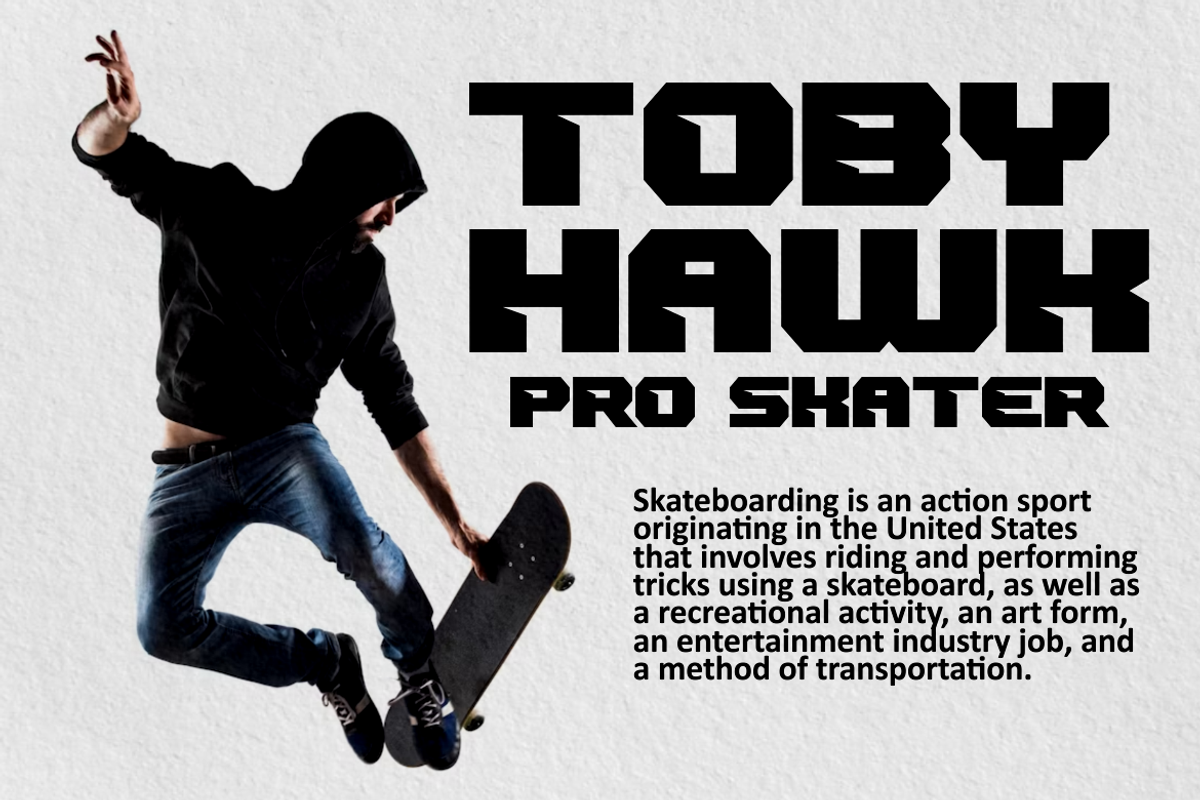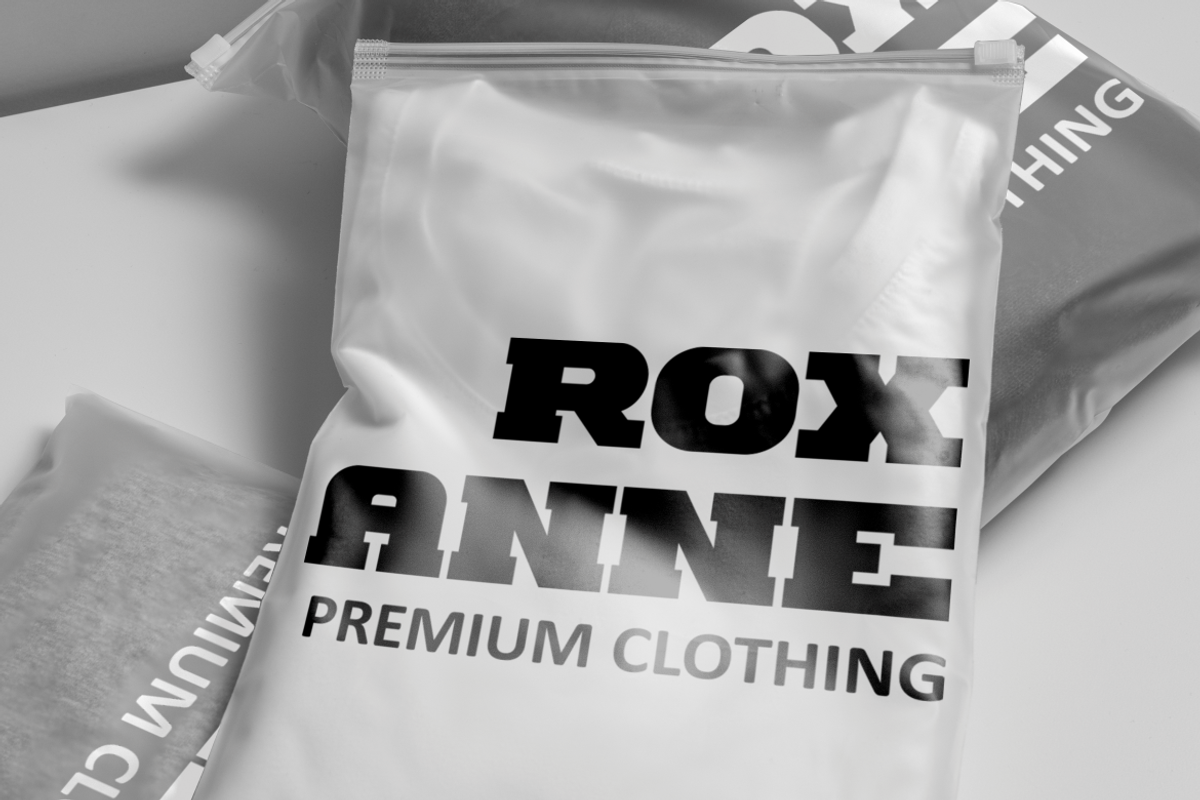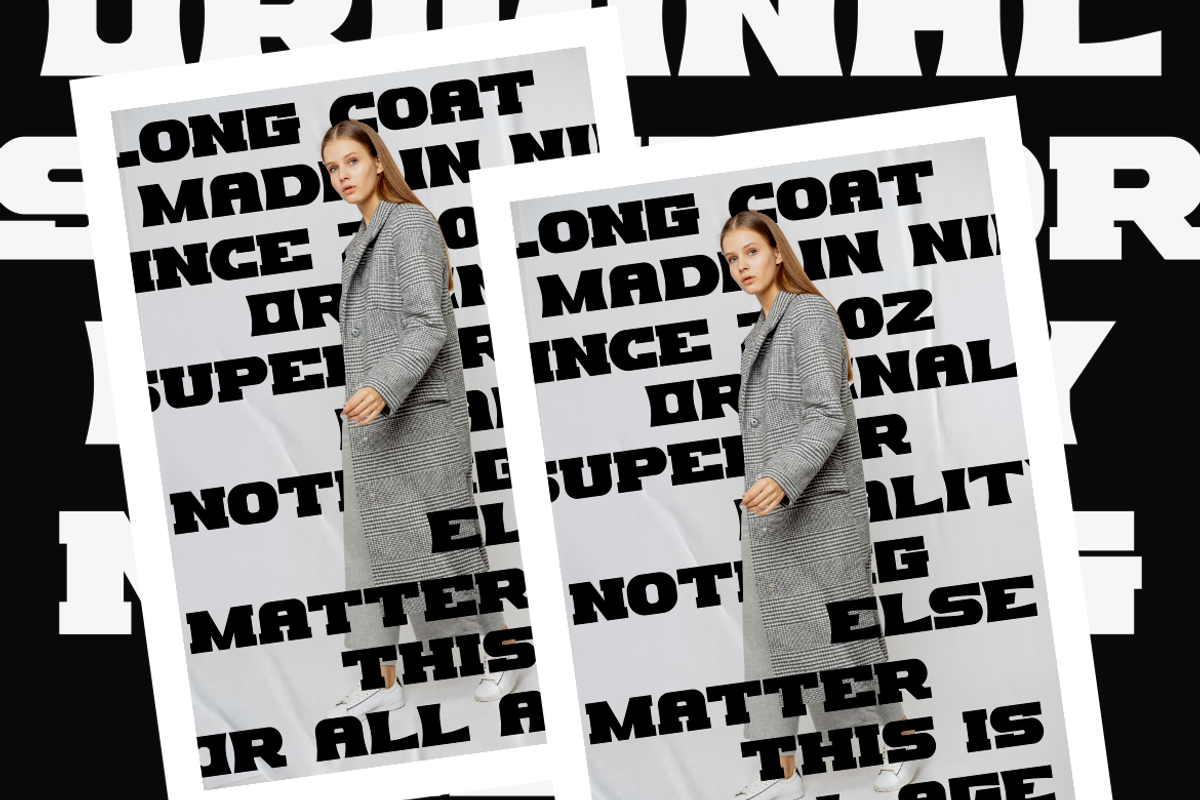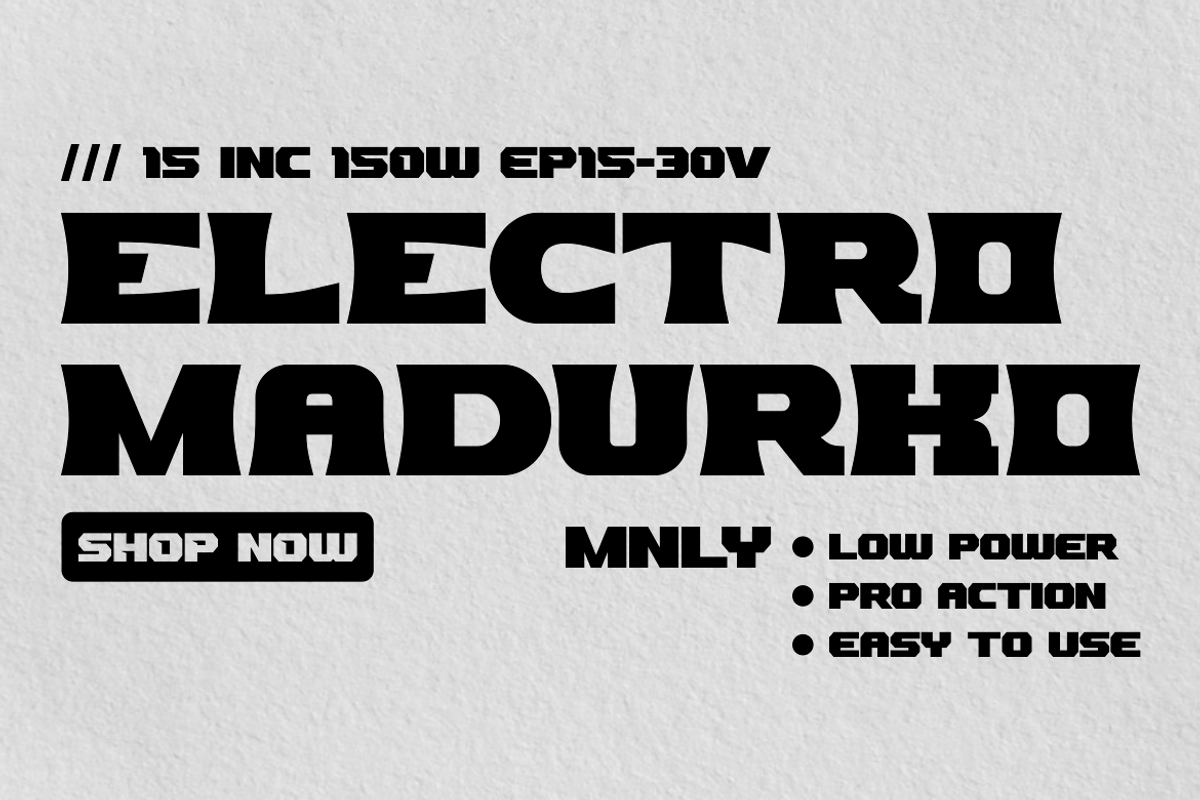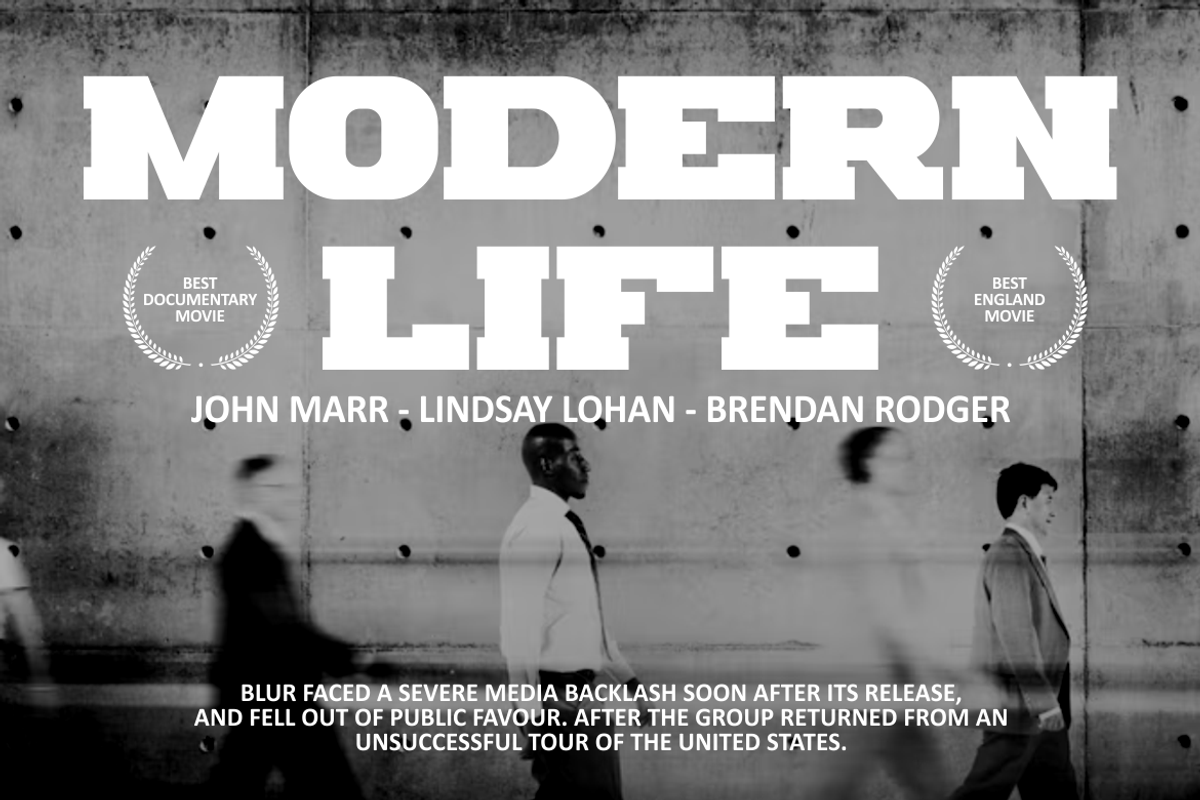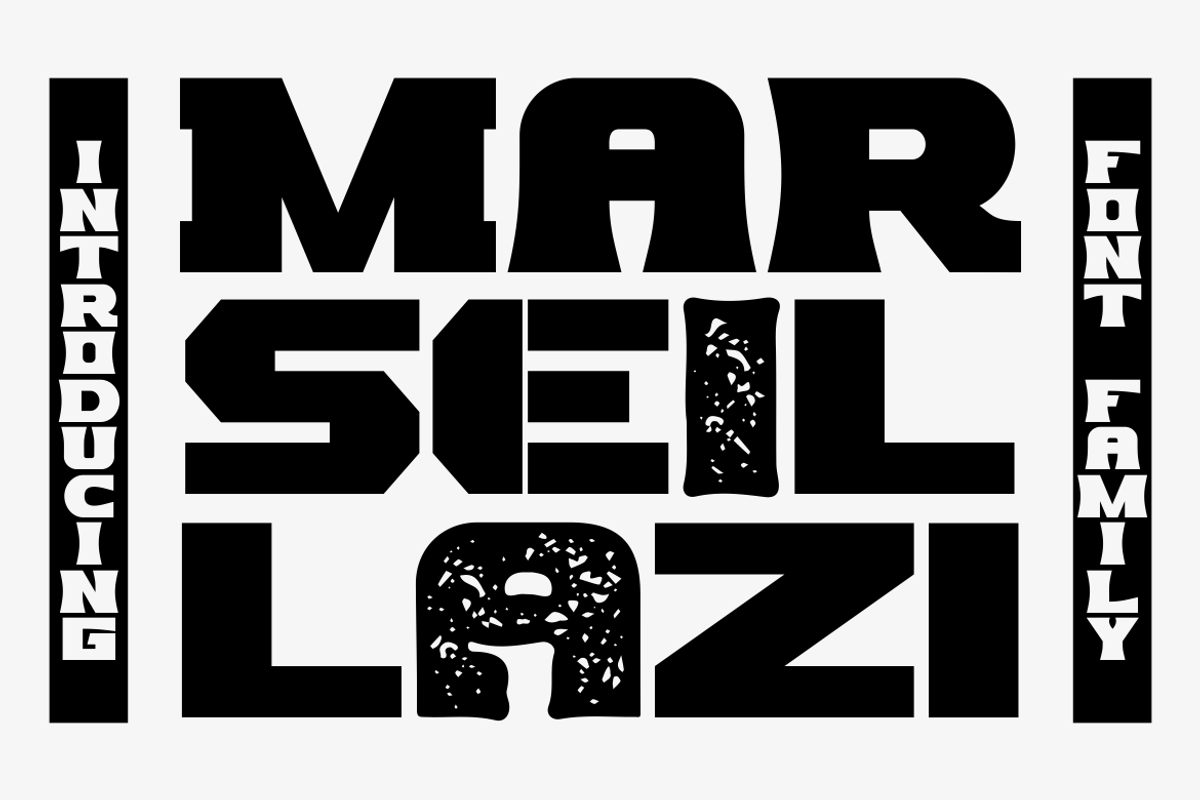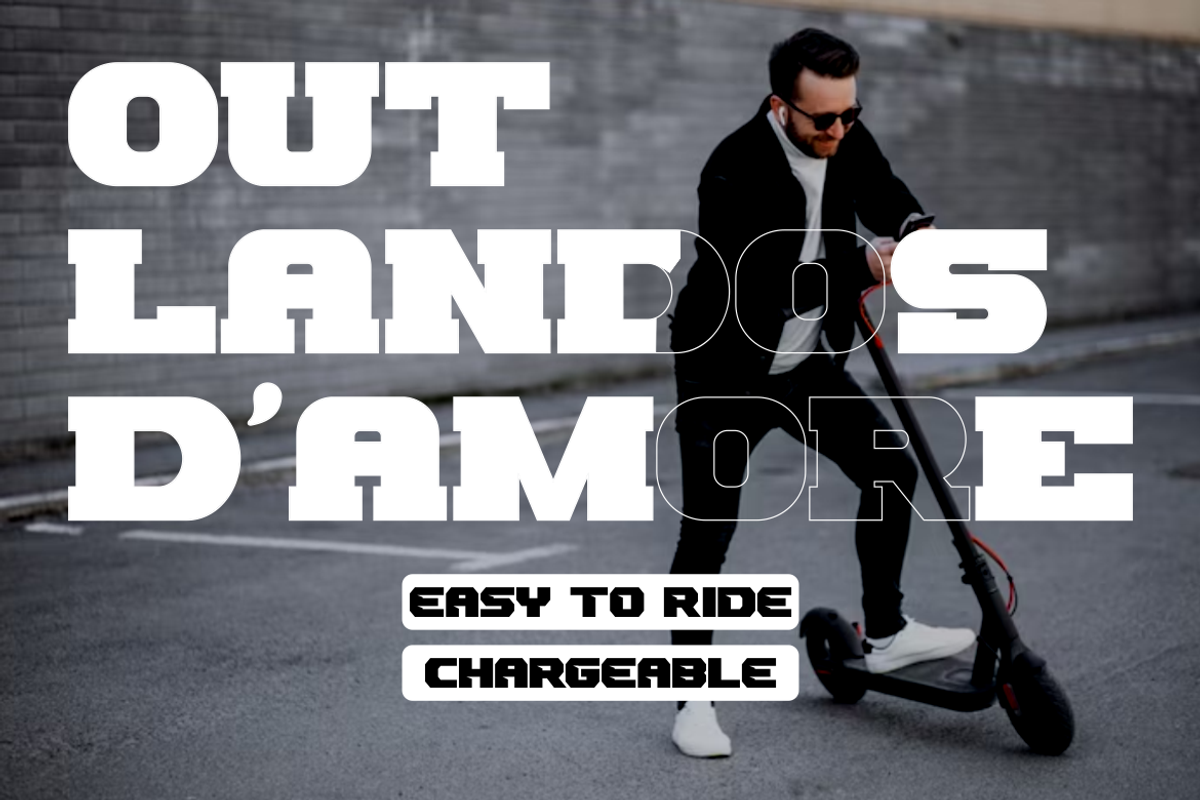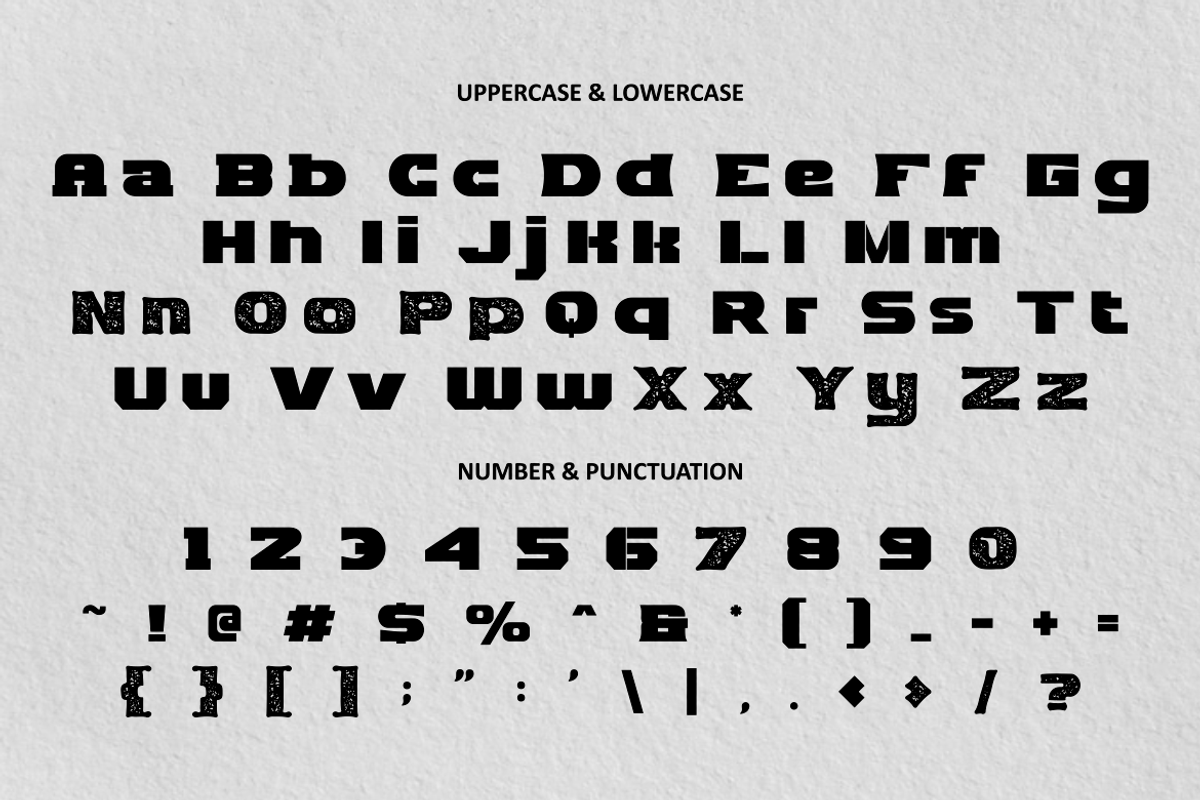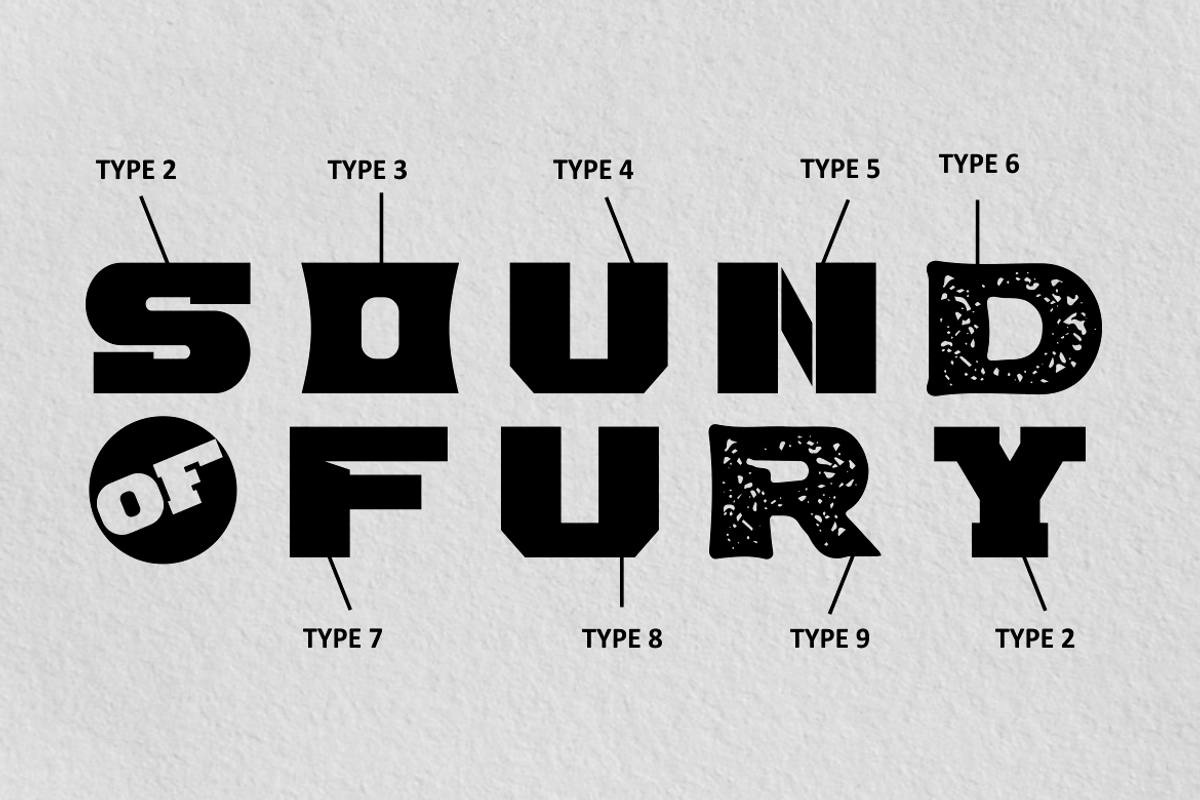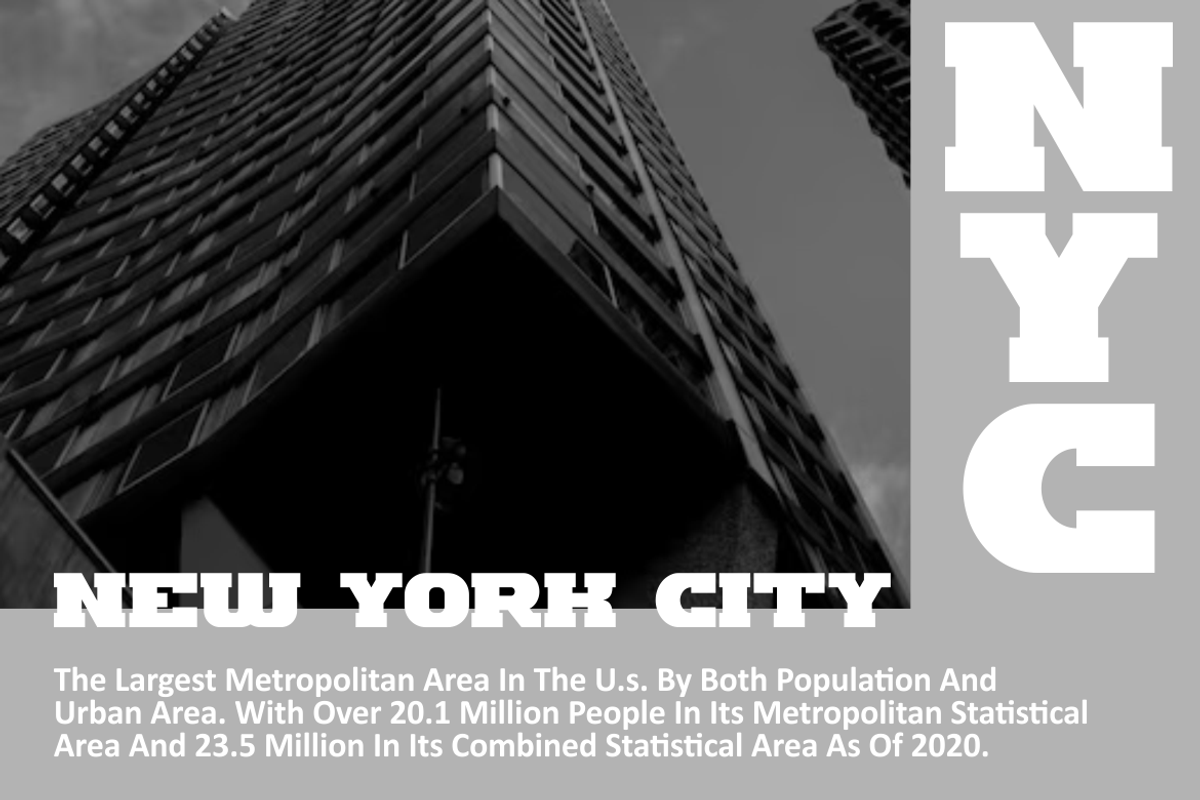
Marseilazi – 9 Strong Bold Style Fon
Marseilazi – 9 Strong Bold Style Font is an imposing and robust typeface with nine additional versions, all sharing the same bold and powerful character. This font's thickness and strength make it incredibly versatile, as it can be seamlessly integrated into a wide range of designs, alongside various other fonts and themes.
The nine available versions include serif, sans-serif, sport, grunge, slab, stencil, display, and more, providing ample choices for your creative needs. Whether you're working on logos, titles, headlines, posters, films, magazines, business materials, personal names, and more, Marseilazi delivers an impactful visual presence.
With its versatility and commanding presence, this font is an excellent choice for making a statement in your designs and leaving a lasting impression.